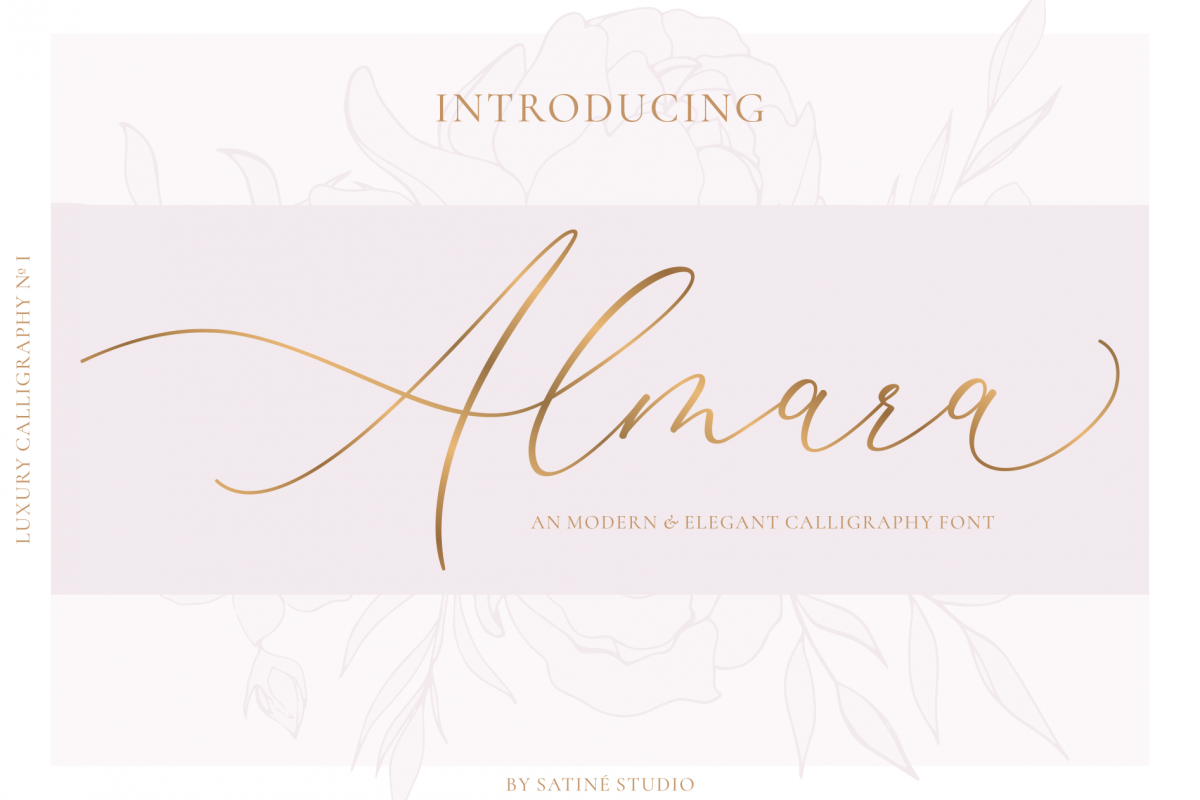
Almara
Introducing Almara, a new luxury & elegant
calligraphy font. Almara is perfect for wedding invitations & cards, blogs
and websites, branding design, packaging design, wine labeling, and more.
Almara includes full set of upper and
lowercase letters, numerals & punctuations, ligatures, swash and alternate
characters, as well as multilingual support.